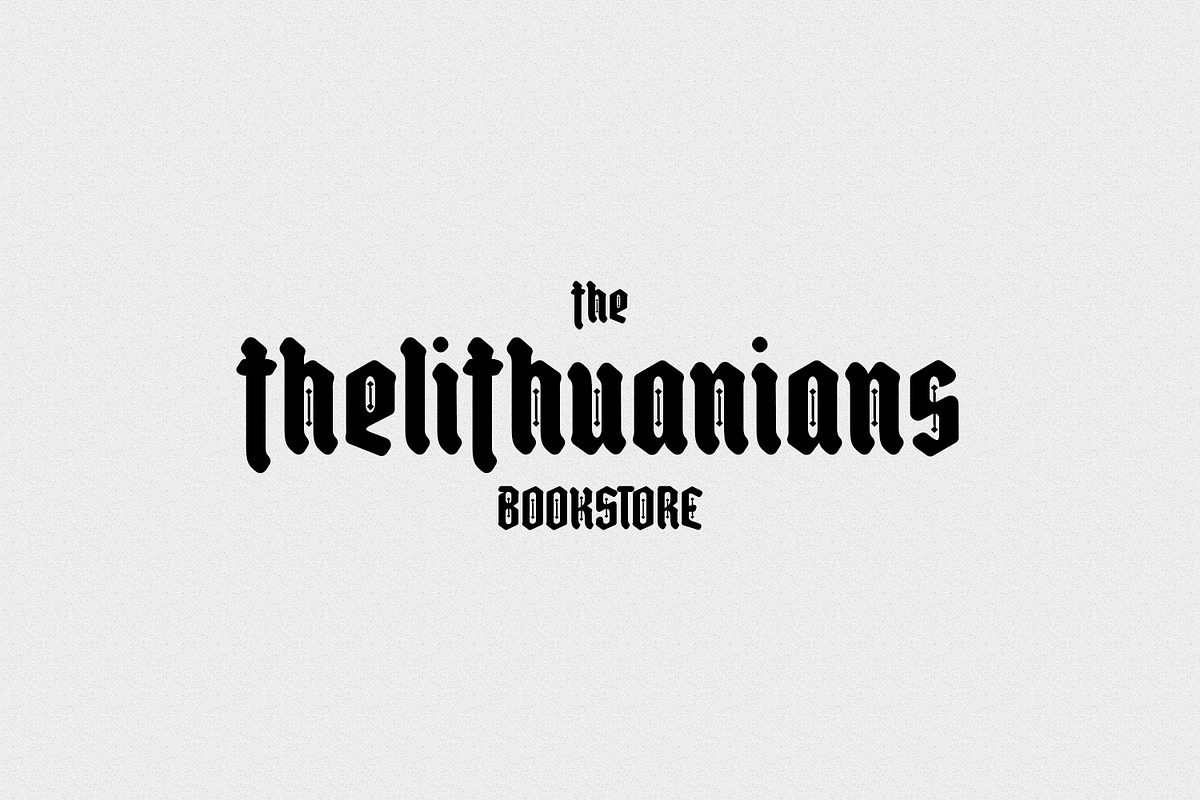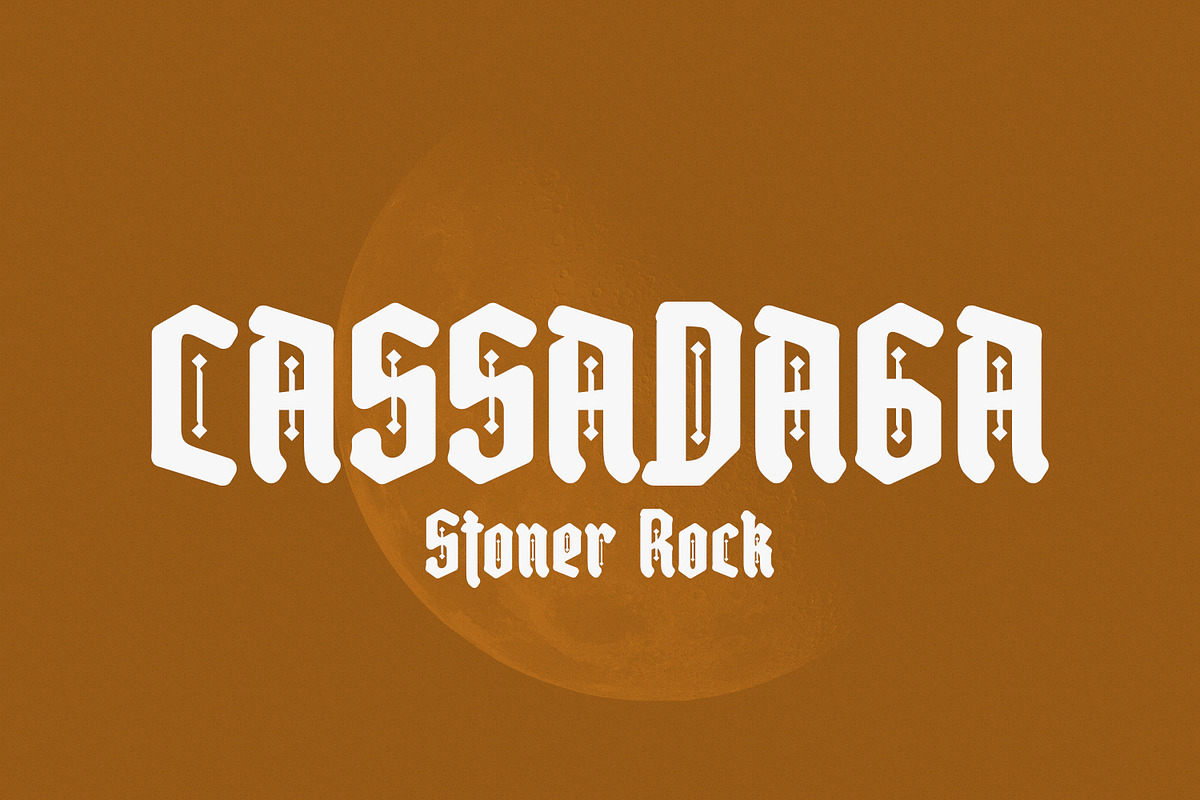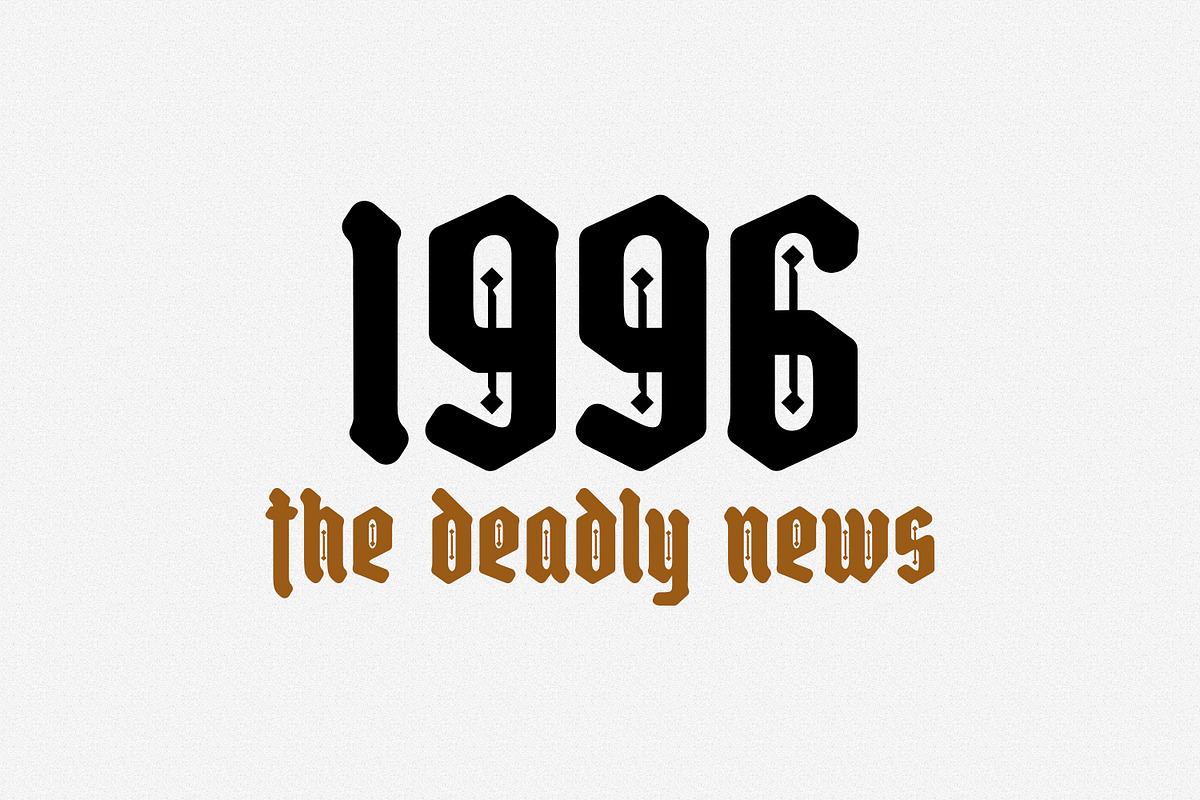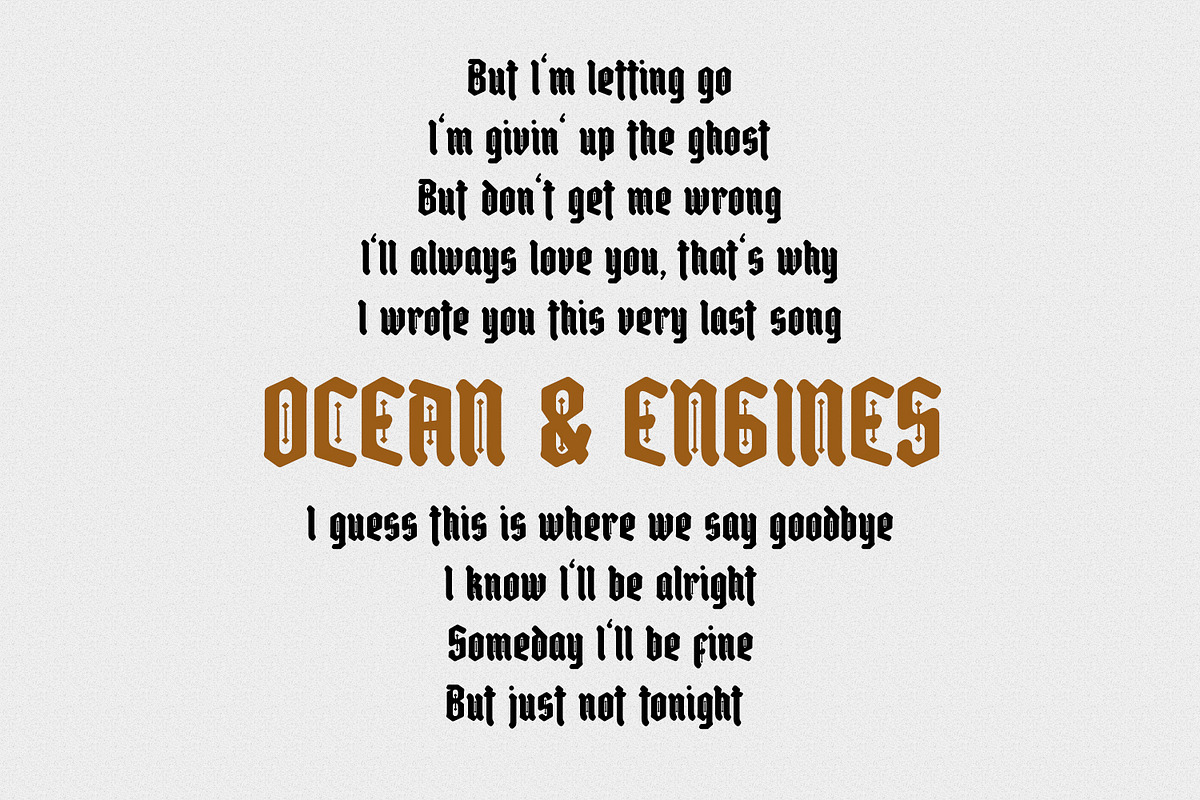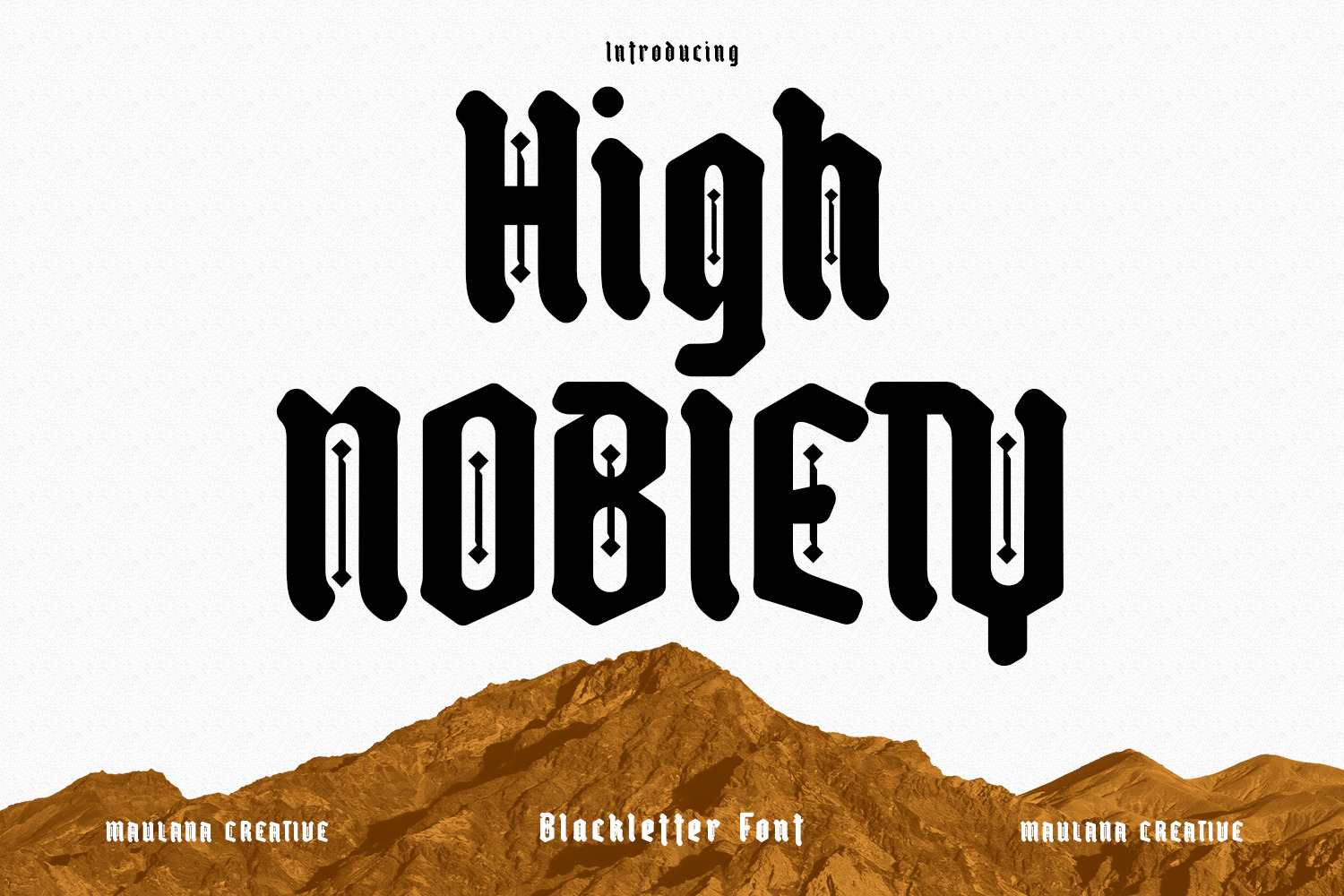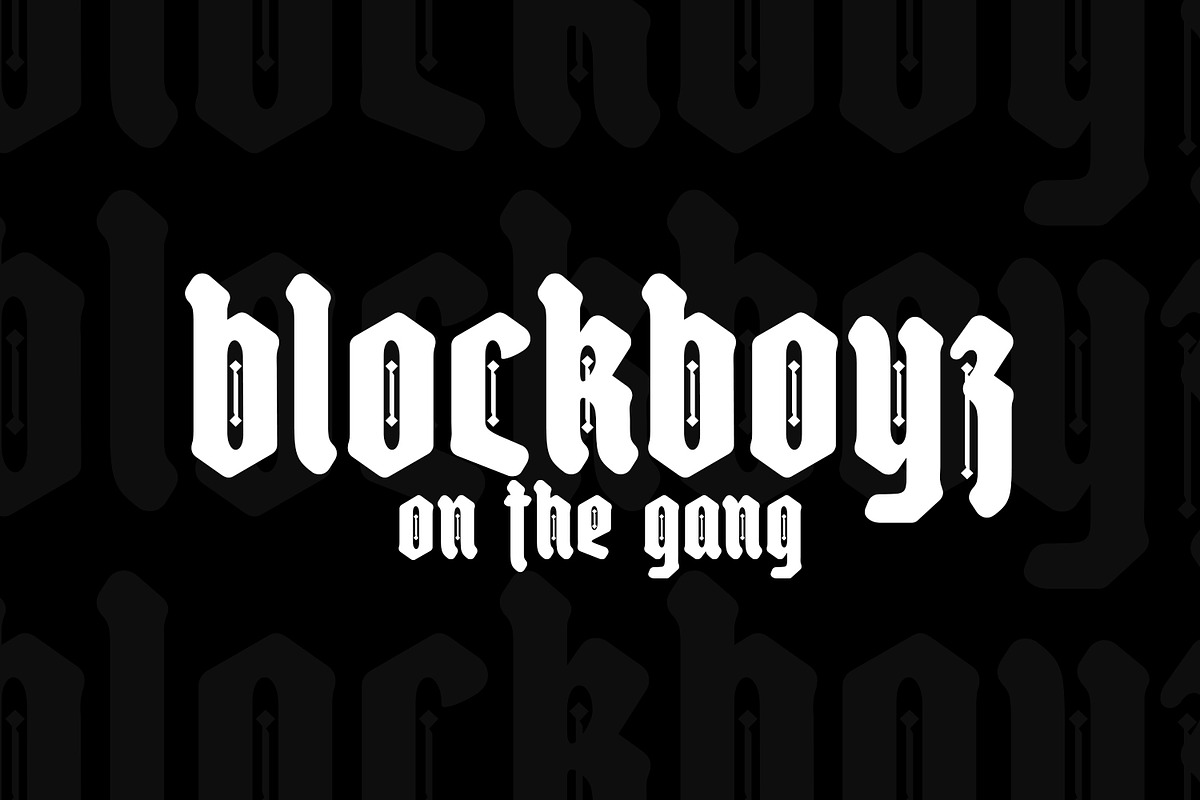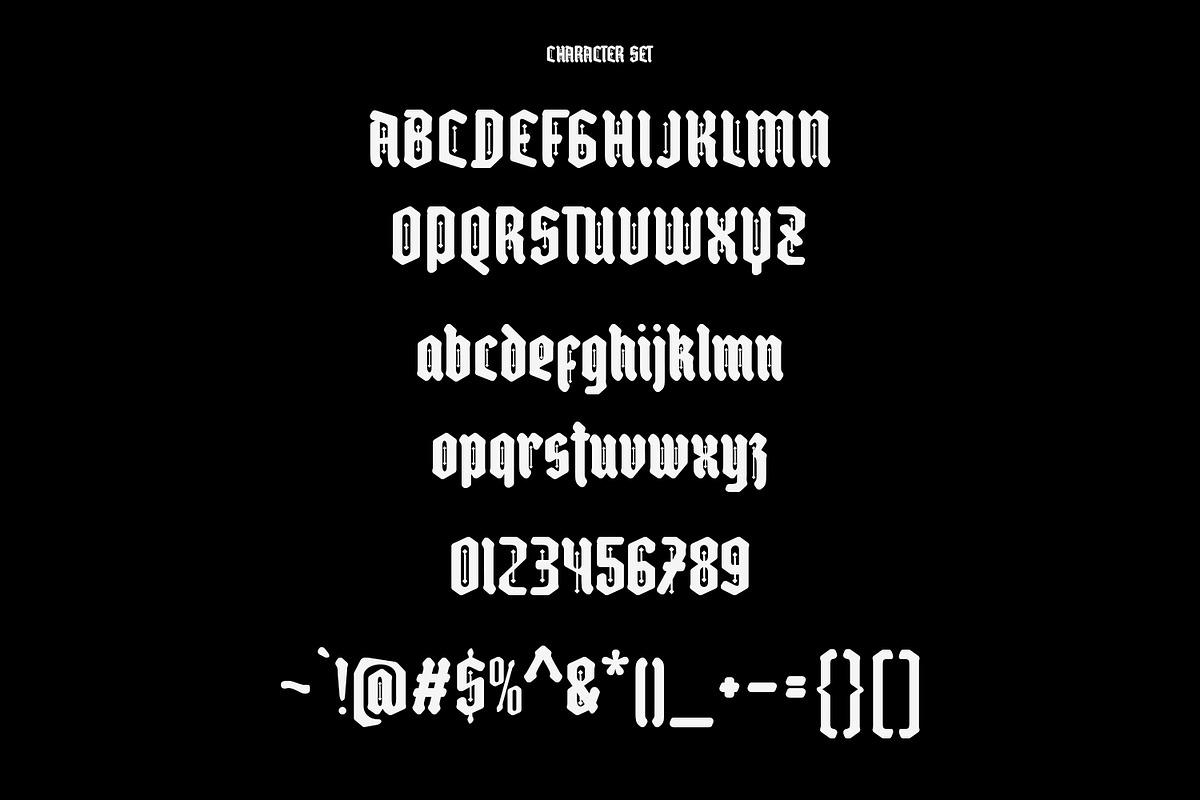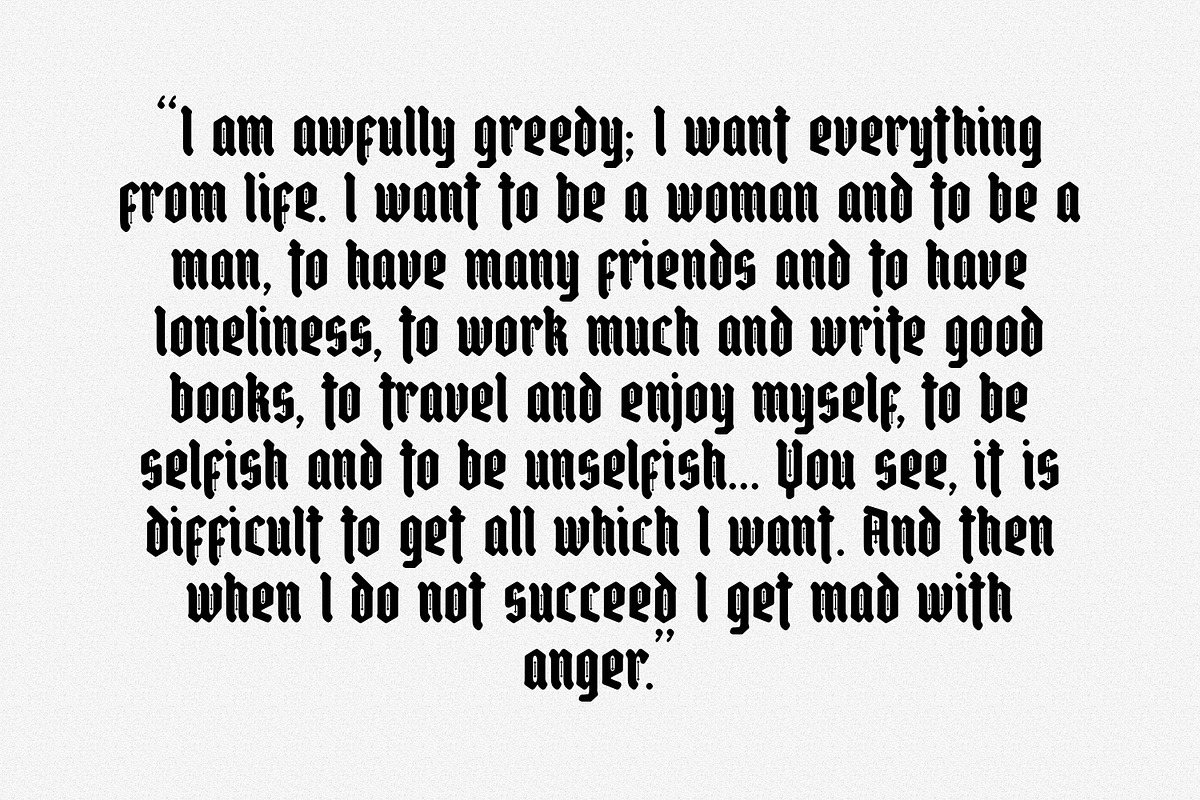
High Nobiety Modern Blackletter Font
High Nobiety is a modern style of blackletter font. With medium low contrast stroke, fun character with a bit of ligatures and alternates. To give you an extra creative work. High Nobiety font support multilingual more than 100+ language. This font is good for logo design, Social media, Movie Titles, Books Titles, a short text even a long text letter and good for your secondary text font with sans or serif. Make a stunning work with High Nobiety font.